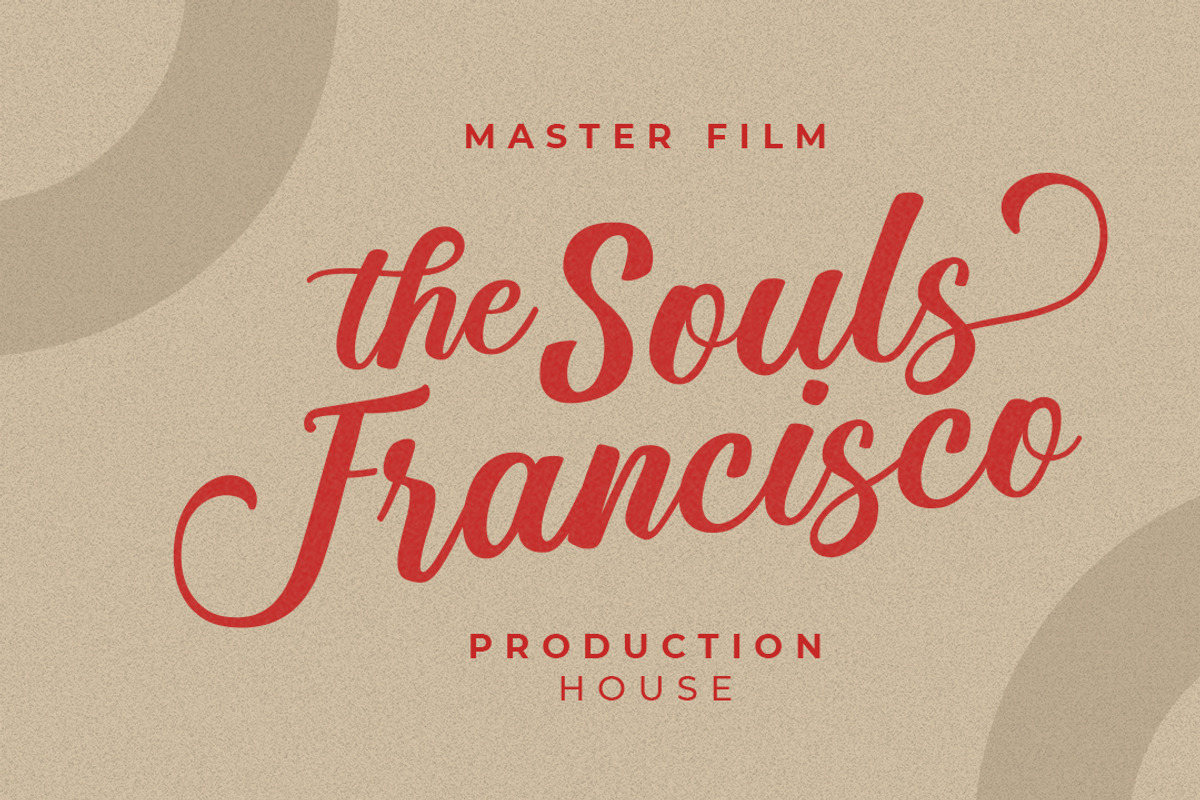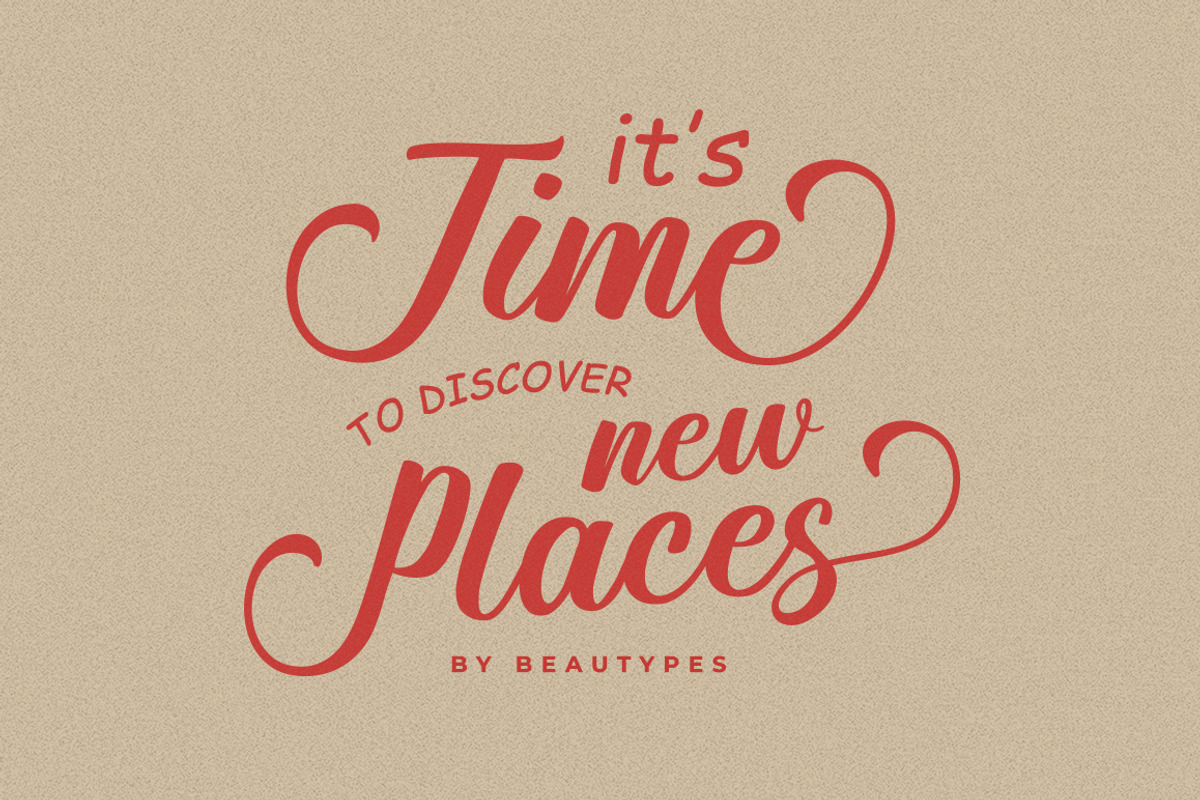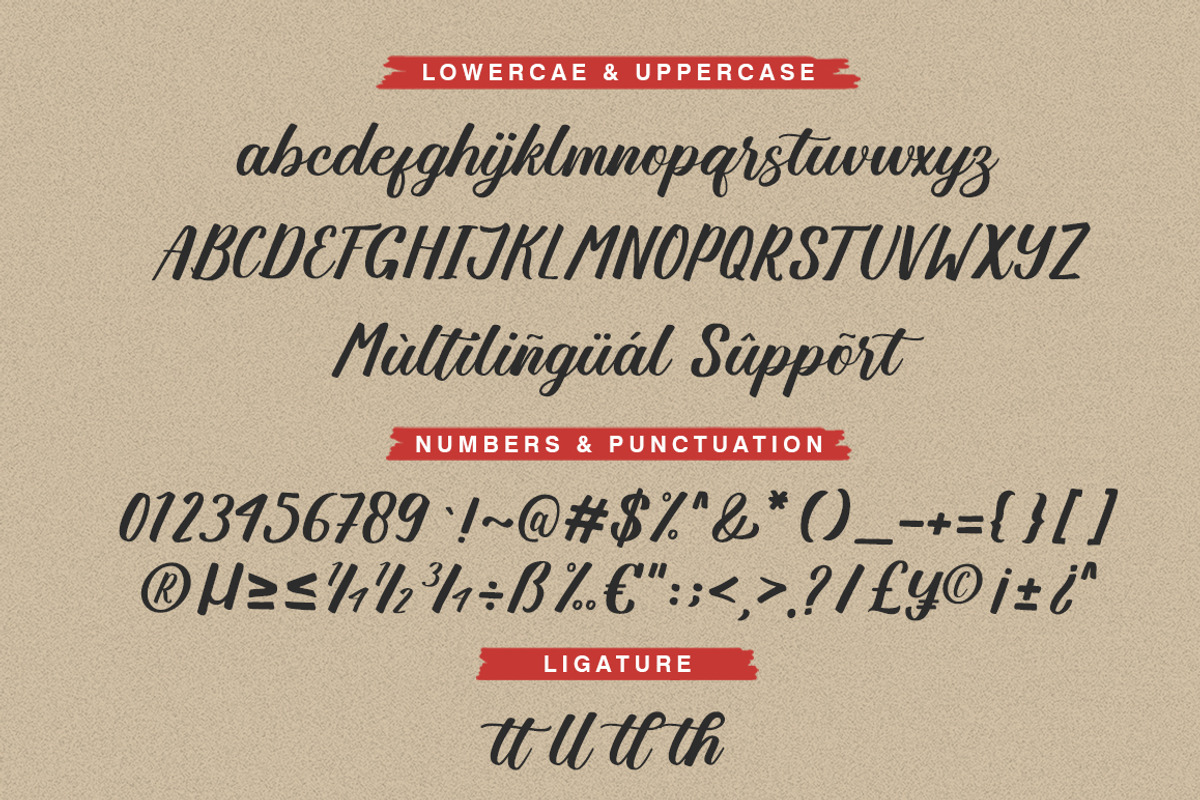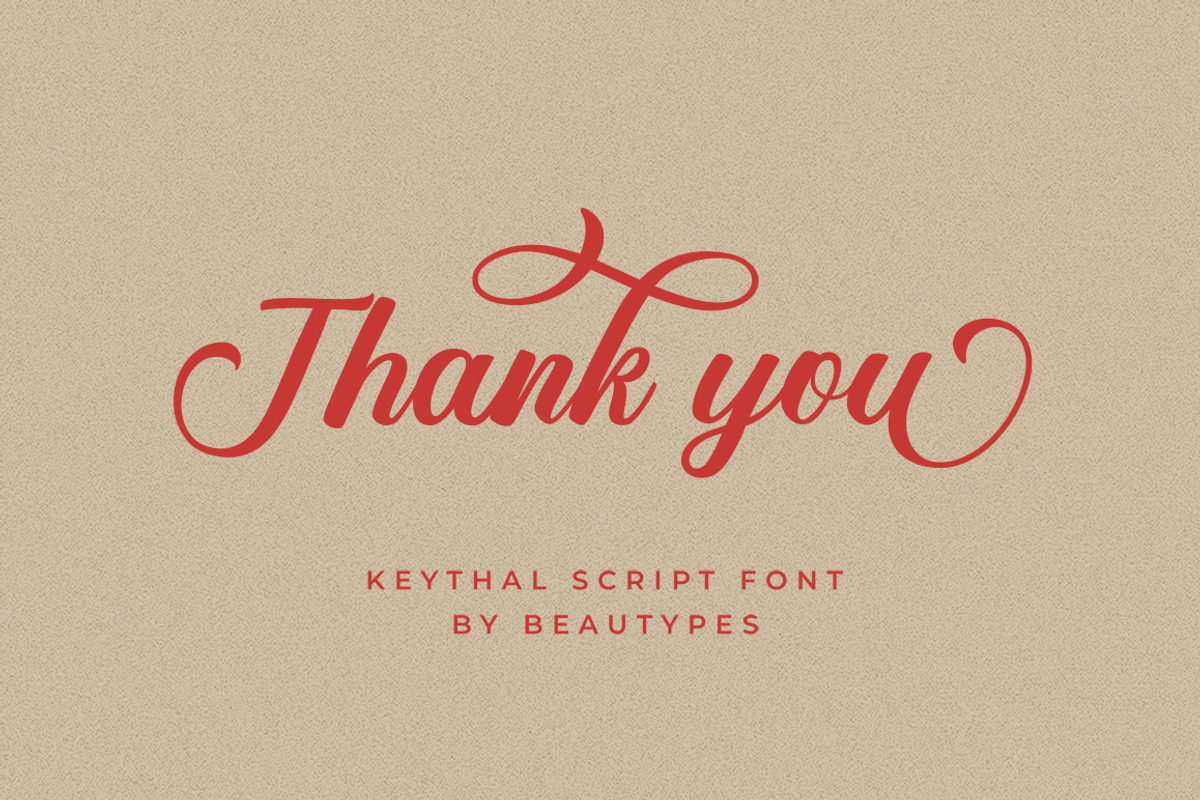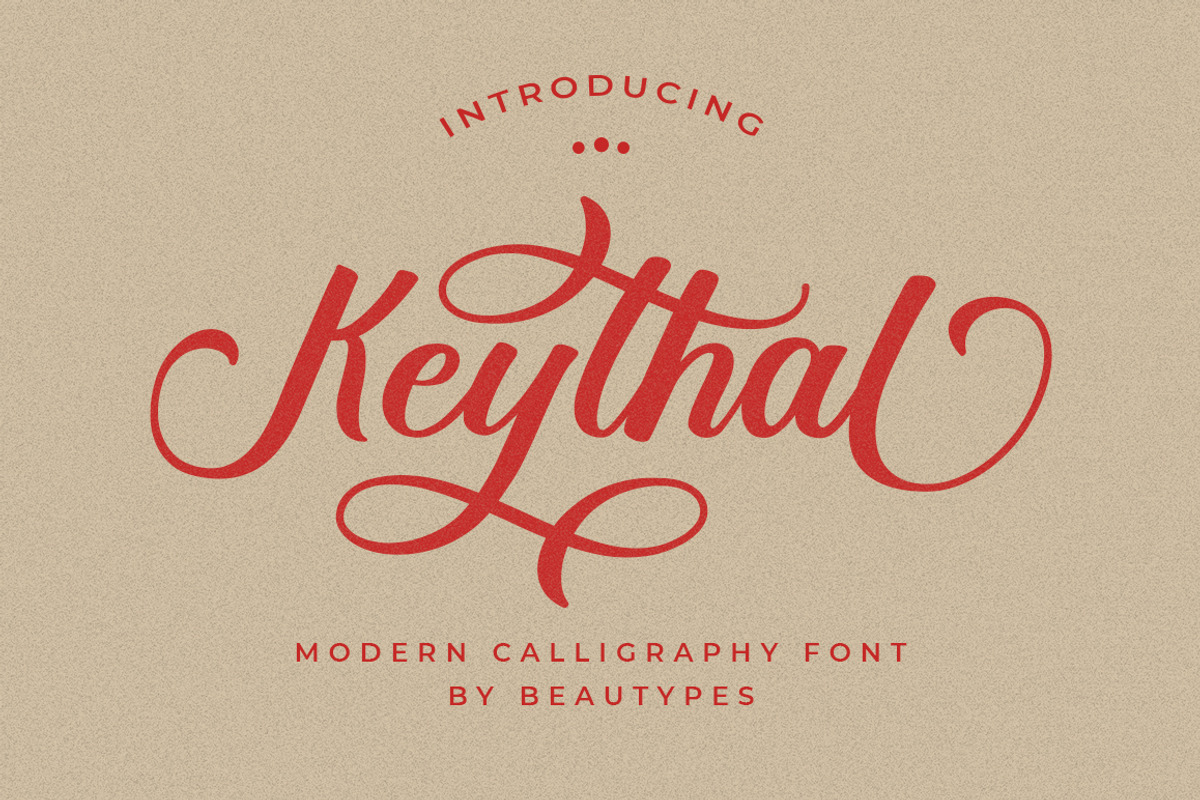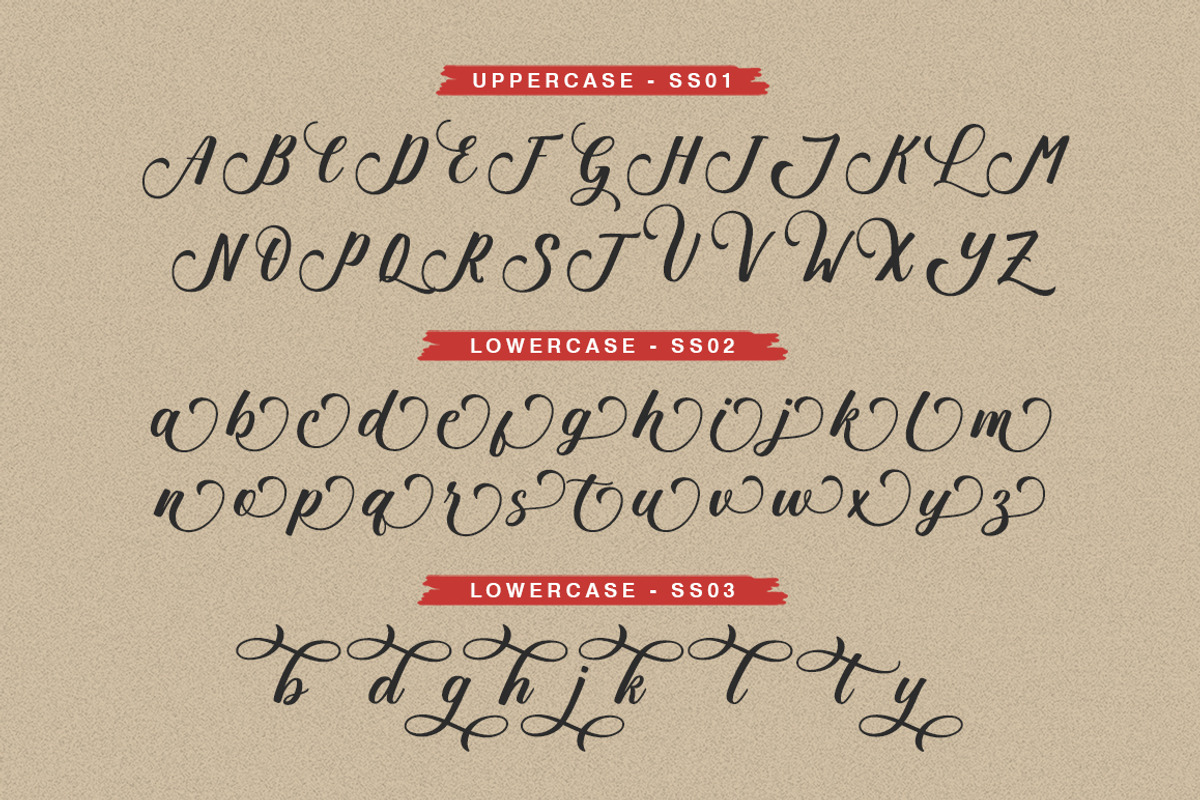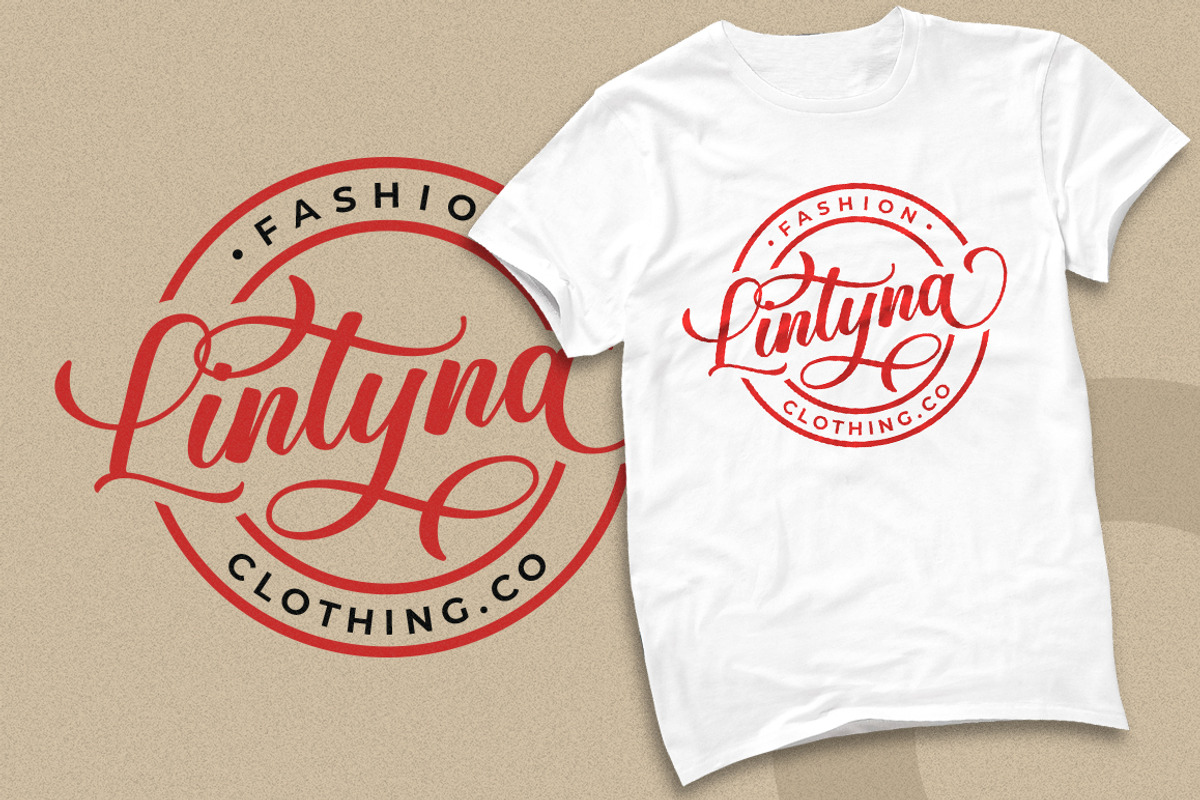
Keythal - a modern script
Keythal is a beautiful and adorable script handwritten font we designed to easily represent the lovely, fun, and friendly taste/personality.
Keythal would perfect for invitation, logos, branding, photography, advertisements, social media posts, product packaging, product designs, label, wedding designs, stationery, special events, or anything that need a beautiful and lovely taste.
The alternative characters were divided into several Open Type features such as Swash, Stylistic Sets, Stylistic Alternates, Contextual Alternates. The Open Type features can be accessed by using Open Type programs such as Adobe Illustrator, Adobe InDesign, Adobe Photoshop Corel Draw X version, And Microsoft Word. And this Font has given PUA unicode (specially coded fonts). so that all the alternate characters can easily be accessed in full by a craftsman or designer.